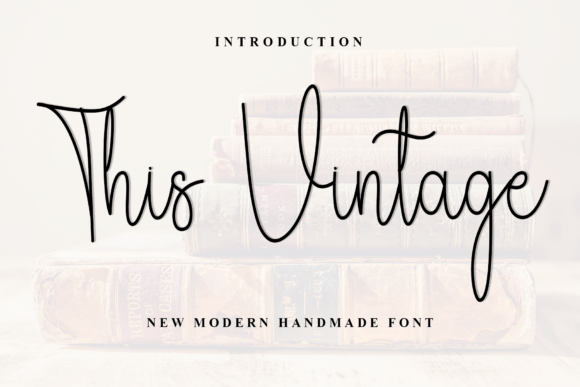
This Vintage Font: A Timeless Classic for Creative Projects
In the world of typography, few fonts have managed to capture the essence of nostalgia and timelessness as effectively as This Vintage font. Designed with a soft, unique touch, this beautiful font has been making waves in the design community for its distinctive strokes and versatility. Whether you’re working on a design project, crafting a brand identity, or simply looking for a font that adds a touch of elegance to your creative works, This Vintage font is an excellent choice.
Distinctive Characteristics of This Vintage Font
This Vintage font boasts a range of features that set it apart from other fonts in its category. Its soft, unique touch gives it a special character that is both meaningful and versatile. The font’s distinctive strokes are carefully crafted to provide a natural, effortless look that is perfect for a wide range of design projects.
- Unique Touch: The font’s soft touch gives it a distinctive feel that is both elegant and sophisticated.
- Distinctive Strokes: The font’s strokes are carefully crafted to provide a natural, effortless look that is perfect for a wide range of design projects.
- Versatility: This Vintage font is designed to be versatile, making it perfect for use in a variety of creative projects, from design and crafts to artistic and creative works.
Perfect for a Wide Range of Creative Projects
This Vintage font is perfect for a wide range of creative projects, from design and crafts to artistic and creative works. Its unique touch and distinctive strokes make it an excellent choice for:
- Design Projects: Use This Vintage font to add a touch of elegance and sophistication to your design projects, from brochures and posters to logos and branding materials.
- Crafts: The font’s natural, effortless look makes it perfect for craft projects, such as handmade cards, invitations, and other paper crafts.
- Artistic and Creative Works: This Vintage font is also ideal for artistic and creative works, such as illustrations, paintings, and digital art.
The Benefits of Using This Vintage Font
So why choose This Vintage font for your creative projects? Here are just a few benefits of using this beautiful font:
- Enhance Your Designs: This Vintage font is designed to enhance your designs, making them more appealing to a wide range of audiences.
- Timeless Appeal: The font’s timeless appeal ensures that your designs will remain stylish and relevant for years to come.
- Versatility: This Vintage font is versatile, making it perfect for use in a variety of creative projects.
Tips and Tricks for Using This Vintage Font
Here are a few tips and tricks for getting the most out of This Vintage font:
- Experiment with Different Sizes: Try experimenting with different font sizes to see how This Vintage font looks in different contexts.
- Pair with Other Fonts: Consider pairing This Vintage font with other fonts to create a unique and visually appealing typography.
- Use in Combination with Images: This Vintage font looks great in combination with images, so try using it to add text to your photos and illustrations.
In conclusion, This Vintage font is a beautiful and eye-catching font that is perfect for a wide range of creative projects. Its unique touch, distinctive strokes, and versatility make it an excellent choice for designers, crafters, and artists. With its compatibility with various applications and timeless appeal, This Vintage font is sure to enhance your designs and make them more appealing to a wide range of audiences.